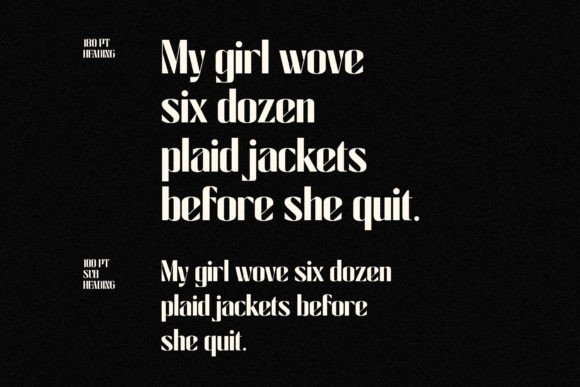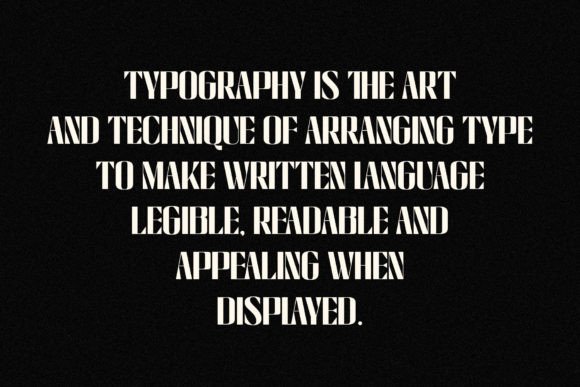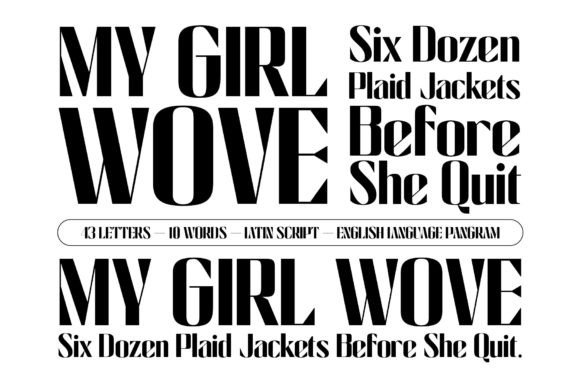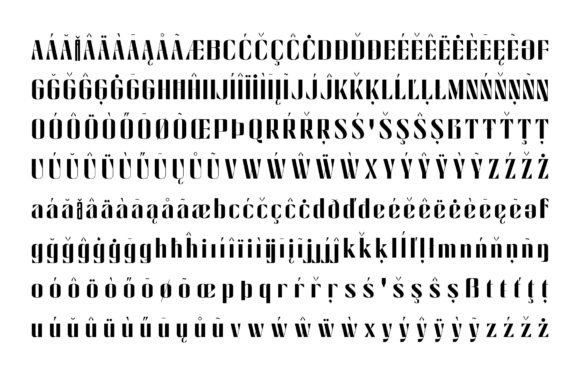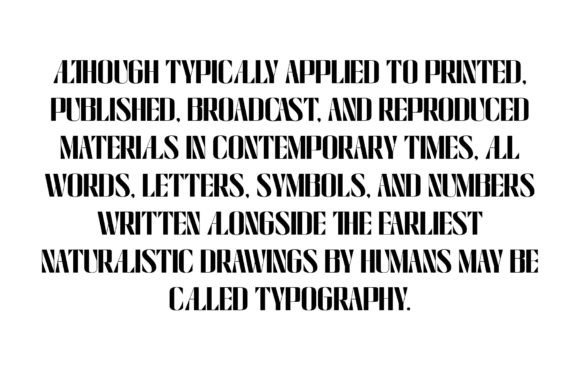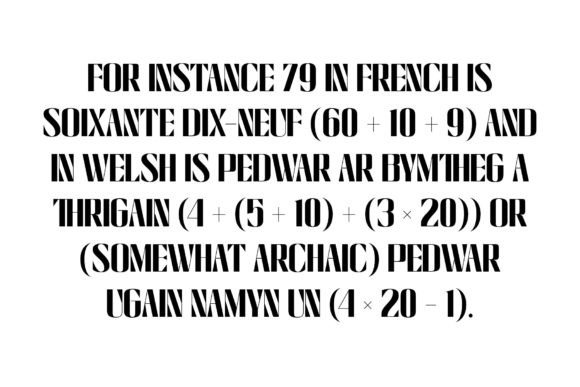
Cas Calisaya Font: Elevate Your Designs with a Unique and Stylish Display Font
In the world of typography, a font can make or break a design. With the right font, you can add personality, style, and sophistication to your project. If you’re looking for a font that can elevate your designs and make them stand out, look no further than Cas Calisaya. This unique and stylish display font is perfect for designers and crafters who want to add a touch of elegance and ruggedness to their work.
The Characteristics of Cas Calisaya Font
Cas Calisaya is a one-of-a-kind font that boasts high contrast, giving it a graceful and refined look. The heavy weight of the font makes it masculine and rugged, perfect for designs that require a strong and bold statement. The modern and sophisticated ligatures add an extra layer of value to this typeface, making it a versatile font that can be used in a variety of design projects.
What Makes Cas Calisaya Font Stand Out
So, what sets Cas Calisaya apart from other fonts? Here are a few key features that make it a standout:
- High Contrast: The high contrast of Cas Calisaya gives it a unique and elegant look that’s perfect for designs that require a touch of sophistication.
- Heavy Weight: The heavy weight of the font makes it masculine and rugged, perfect for designs that require a strong and bold statement.
- Modern Ligatures: The modern and sophisticated ligatures add an extra layer of value to this typeface, making it a versatile font that can be used in a variety of design projects.
How to Use Cas Calisaya Font in Your Designs
Cas Calisaya is a versatile font that can be used in a variety of design projects, from branding and advertising to packaging and web design. Here are a few ways you can use Cas Calisaya in your designs:
- Headings and Titles: Use Cas Calisaya as a heading or title font to add a touch of elegance and sophistication to your design.
- Branding and Logo Design: Use Cas Calisaya as a logo font to create a strong and memorable brand identity.
- Advertising and Marketing: Use Cas Calisaya in your advertising and marketing materials to add a touch of style and sophistication.
Why Designers and Crafters Love Cas Calisaya Font
Designers and crafters love Cas Calisaya for its unique and stylish design. Here are a few reasons why:
- Unique Design: Cas Calisaya has a one-of-a-kind design that’s sure to make your designs stand out.
- Versatility: Cas Calisaya is a versatile font that can be used in a variety of design projects.
- Elegance and Sophistication: Cas Calisaya adds a touch of elegance and sophistication to any design.
| Font Name | Cas Calisaya Font |
| Author | Casloop |
In conclusion, Cas Calisaya is a unique and stylish display font that’s perfect for designers and crafters who want to elevate their designs and make them stand out. With its high contrast, heavy weight, and modern ligatures, Cas Calisaya is a versatile font that can be used in a variety of design projects. Whether you’re looking to add a touch of elegance and sophistication or make a strong and bold statement, Cas Calisaya is the perfect font for the job.